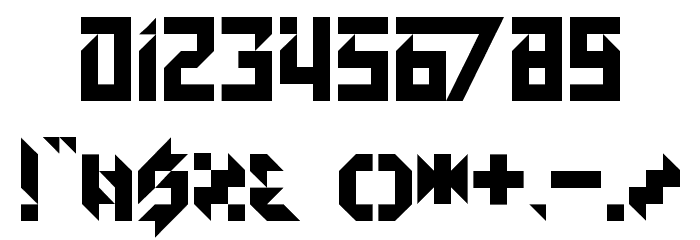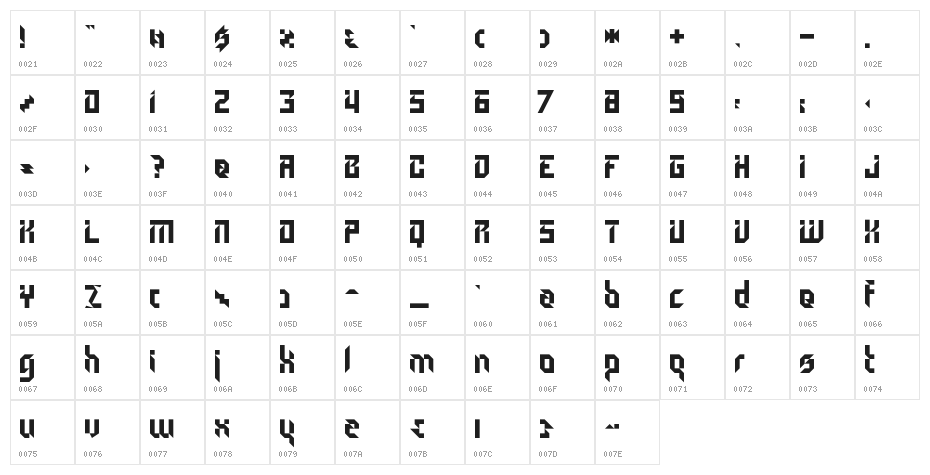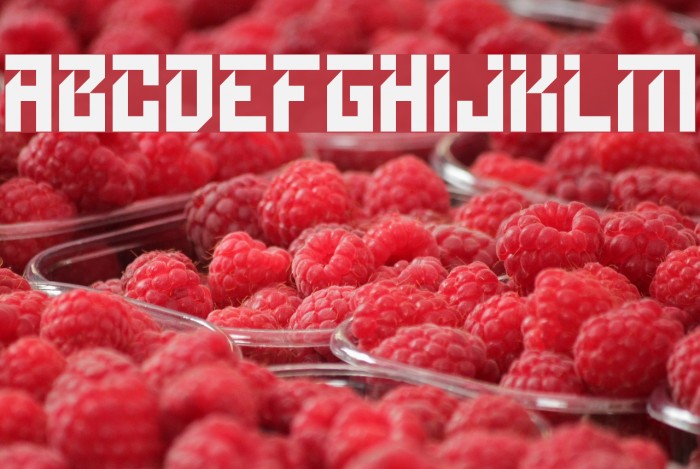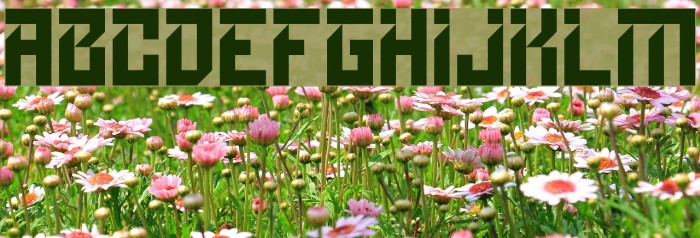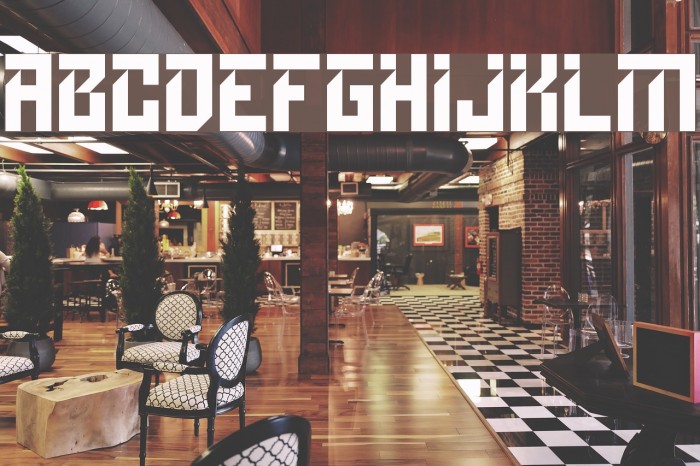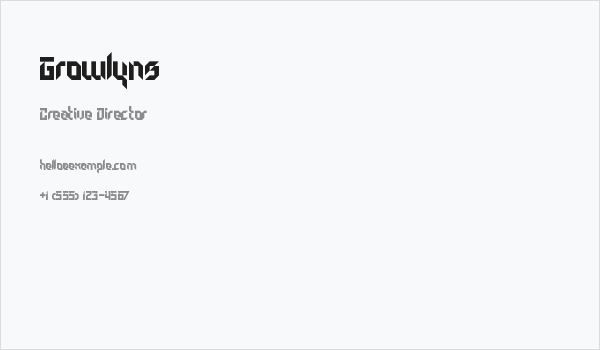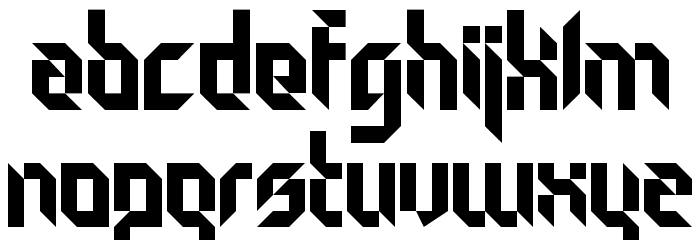
Growlyns Font
Growlyns Description
This font features a bold, geometric design with sharp angles and a futuristic aesthetic. Each character is constructed with a series of straight lines and angular cuts, giving it a distinct, edgy appearance. The uppercase letters are particularly striking, with a blocky, almost robotic style. The lowercase letters maintain the same angular theme, ensuring consistency across the typeface. Numbers and special characters are equally bold and angular, making them stand out. This font's unique style makes it ideal for projects that require a modern, tech-inspired look.
| Overall Style | Futuristic, Edgy |
| Proposed Projects | Ideal for technology branding, sci-fi posters, video game titles, and modern logos. |